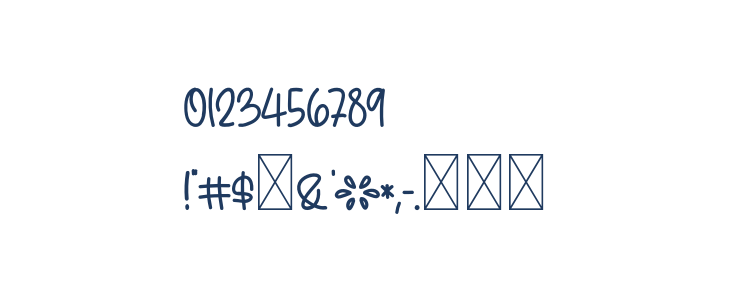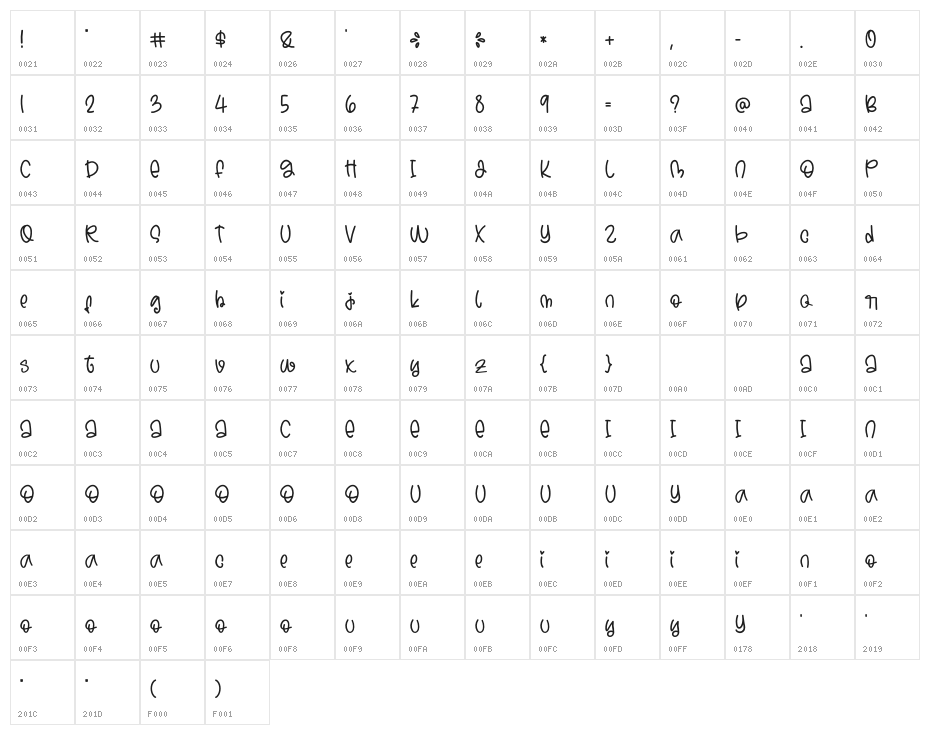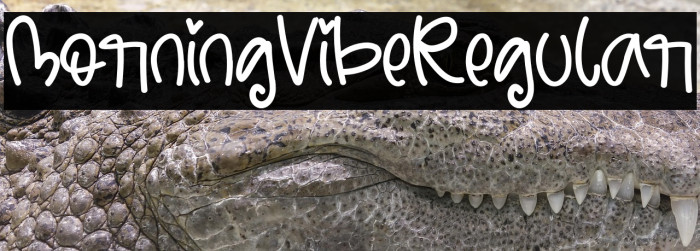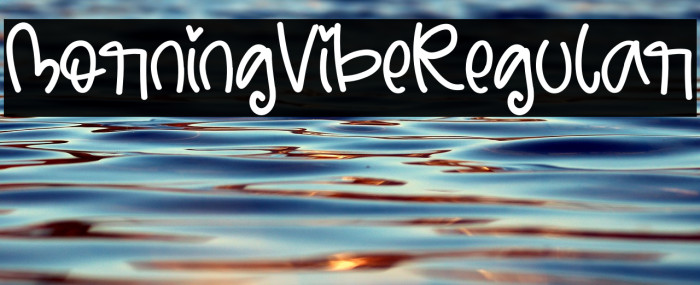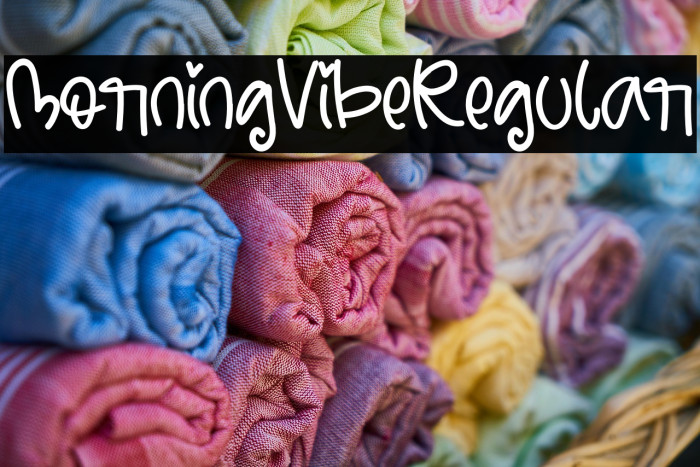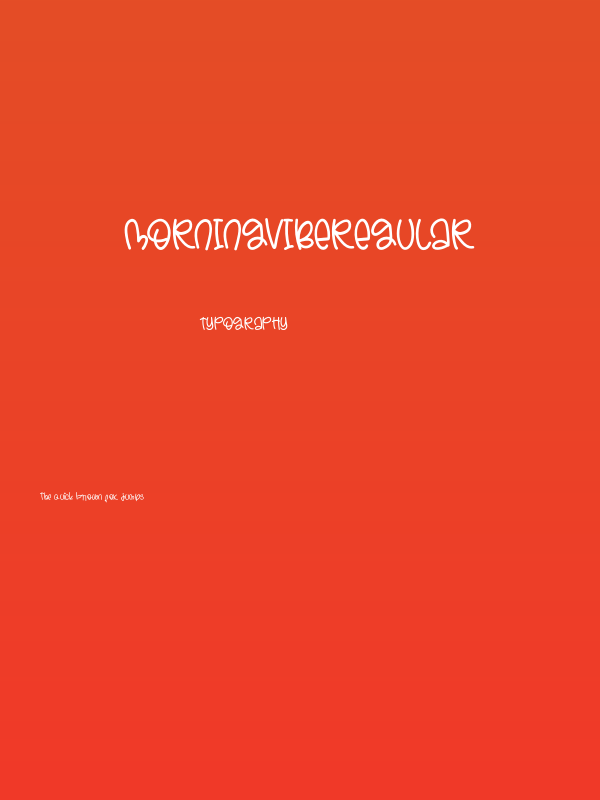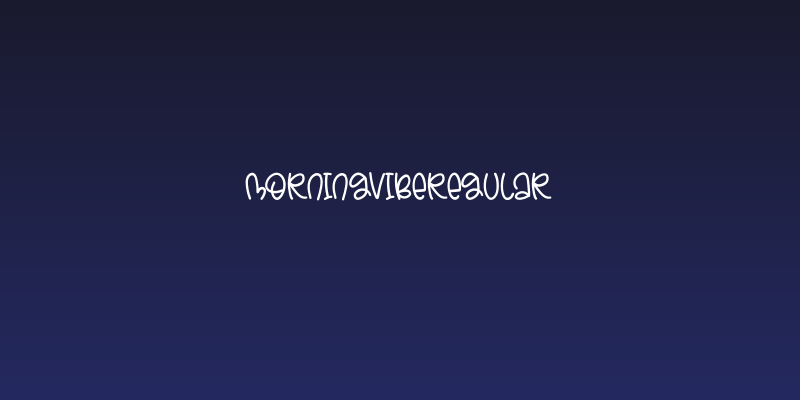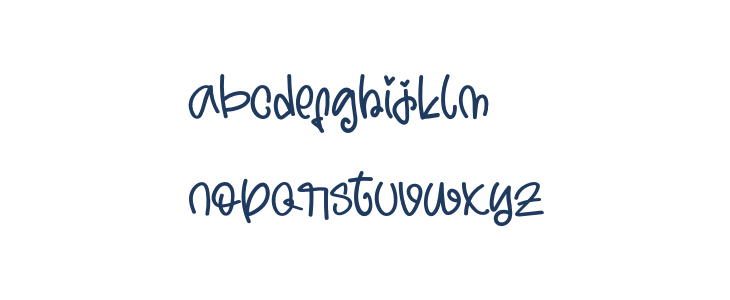
MorningVibeRegular Font
MorningVibeRegular Description
This font exudes a playful and casual vibe, characterized by its handwritten style with a slight slant, giving it a dynamic and lively appearance. The letters are rounded and connected, reminiscent of a personal, informal script. The uppercase and lowercase letters maintain a consistent flow, with some letters featuring unique loops and curls that add to its charm. The numerals and special characters follow the same whimsical style, making it suitable for creative and informal projects. Its overall appearance is friendly and approachable, perfect for conveying a sense of warmth and personality.
| Proposed Projects | Ideal for greeting cards, invitations, personal branding, and creative projects that require a friendly and informal touch. |